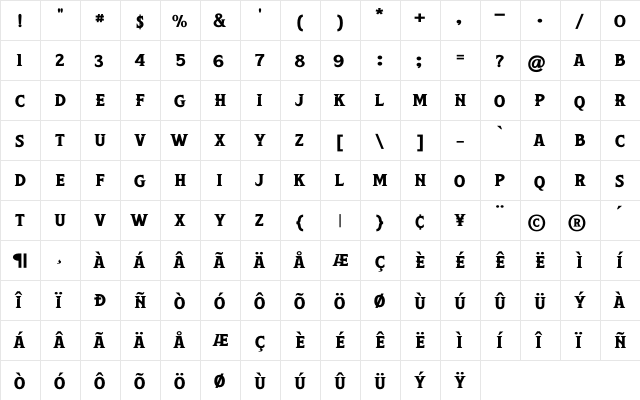
Leviathan Regular
| Foundry | Kong Font |
| Designer | Kong Font |
Design Context for Leviathan Typeface
Leviathan offers clean, dependable letterforms without strong stylistic allegiance, making it a practical choice for designers who need flexibility.